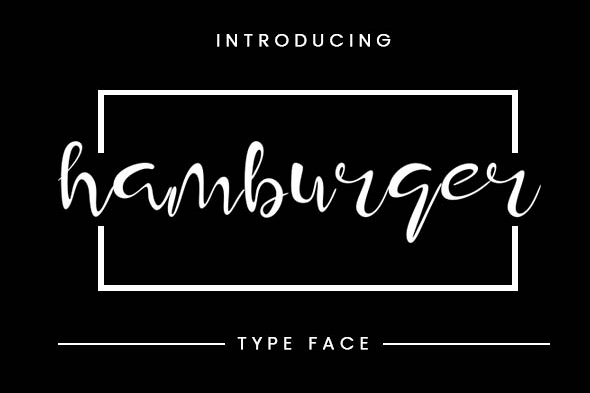
Hamburger Typeface
by Gumacreative
hey there, here is the hamburger script font. it's perfect for you to use on your poster design, logo, and many more.